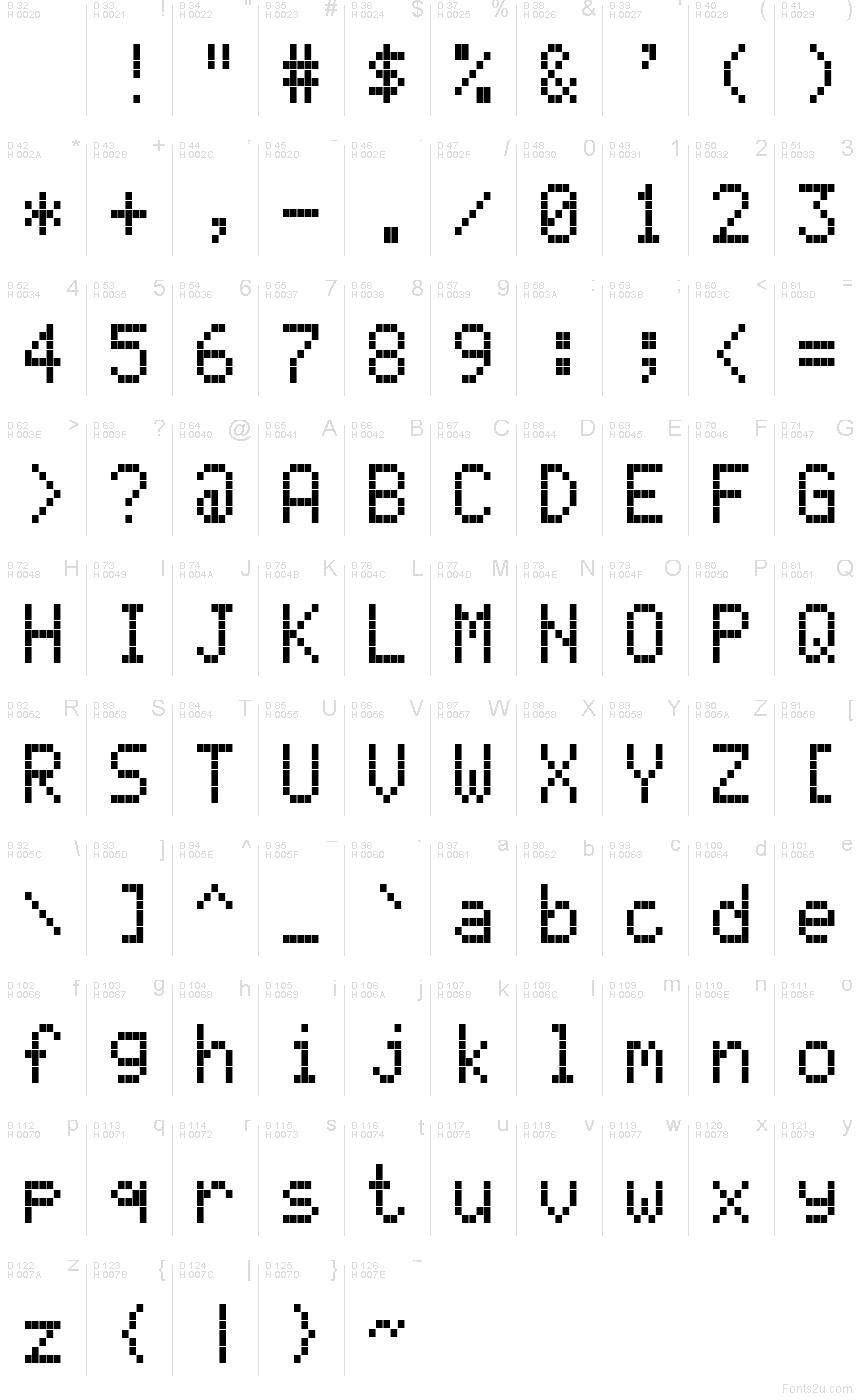
Calculator Regular
Calculator font by Lasalle Lancers is a free digital display typeface that recreates the chunky, segmented look of an old-school calculator screen. Each character is built from tight little black squares, like a pixel grid frozen mid-glow, giving your text a precise, numeric feel even in words. The spacing is compact and mechanical, so lines of copy read like rows on a digital readout or scoreboard.
Using Calculator, you can instantly signal data, math, and retro tech—great for STEM event posters, arcade-style game titles, dashboards, escape room graphics, UI mockups, and sci‑fi branding. This free font works best at larger sizes where the pixel structure stays crisp. For supporting text, pair Calculator with a clean geometric sans serif to keep the visuals sharp but readable.